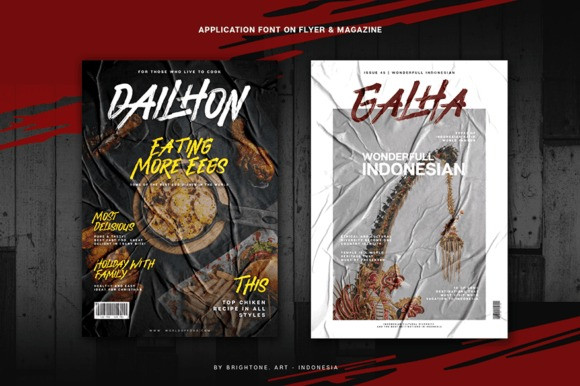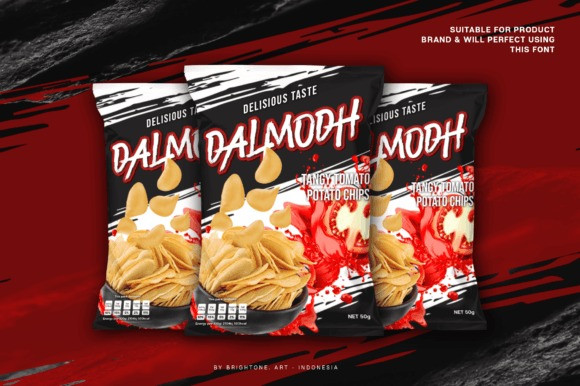
Flastattack Rhymes Font
Flastattack Rhymes is a cool freestyle brush font. It will add an incredibly trendy touch to your designs. Add this unique brush font to each of your creative ideas and notice how it makes them stand out!